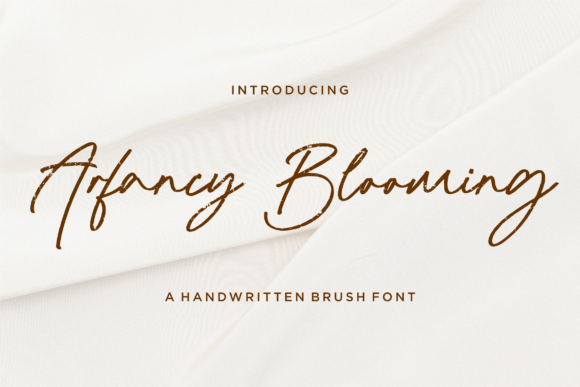
Introducing Arfancy Blooming Font: Elevate Your Designs with Elegance and Charm
Are you looking for a font that can add a touch of sophistication and elegance to your designs? Look no further than the Arfancy Blooming Font. This stylish handwritten script font is perfect for creating beautiful and eye-catching invitations, logos, and branding materials. With its flowing, graceful curves and delicate strokes, Arfancy Blooming Font is sure to bring warmth and creativity to your projects.
The Characteristics of Arfancy Blooming Font
Arfancy Blooming Font is a unique and stylish handwritten script font that boasts several distinctive characteristics. Some of its key features include:
- Flowing, Graceful Curves: The font features beautiful, flowing curves that give it a sense of elegance and sophistication.
- Delicate Strokes: The delicate strokes of the font add a touch of warmth and creativity to any design.
- Handwritten Script: The font has a handwritten script feel that gives it a personal and unique touch.
- Perfect for Invitations and Branding: The font is perfect for creating beautiful invitations, logos, and branding materials.
The Benefits of Using Arfancy Blooming Font
There are several benefits to using Arfancy Blooming Font in your designs. Some of the advantages of this font include:
- Elegance and Sophistication: The font adds a touch of elegance and sophistication to any design.
- Personal Touch: The handwritten script feel of the font gives it a personal and unique touch.
- Versatility: The font is versatile and can be used in a variety of design applications, including invitations, logos, and branding materials.
- Easy to Read: The font is easy to read, making it perfect for use in body text as well as headings.
How to Use Arfancy Blooming Font in Your Designs
Arfancy Blooming Font is easy to use in your designs. Here are a few tips for incorporating the font into your work:
- Use it as a Headline Font: The font is perfect for use in headlines and titles, where its elegant and sophisticated feel can really shine.
- Add it to Your Invitations: The font is perfect for use in invitations, where its personal and unique touch can help to make your event stand out.
- Use it in Your Branding: The font is perfect for use in branding materials, such as logos and business cards, where its elegance and sophistication can help to create a lasting impression.
Tips for Pairing Arfancy Blooming Font with Other Fonts
When using Arfancy Blooming Font in your designs, it’s often a good idea to pair it with other fonts to create visual interest and contrast. Here are a few tips for pairing the font with other fonts:
- Pair it with a Serif Font: Pairing Arfancy Blooming Font with a serif font, such as Times New Roman or Garamond, can create a nice contrast between the elegant, cursive feel of the script font and the traditional, classic feel of the serif font.
- Pair it with a Sans-Serif Font: Pairing Arfancy Blooming Font with a sans-serif font, such as Arial or Helvetica, can create a nice contrast between the elegant, cursive feel of the script font and the clean, modern feel of the sans-serif font.
- Experiment with Different Font Sizes: Experimenting with different font sizes can help to create visual interest and contrast in your designs.
Arfancy Blooming Font is a beautiful and elegant handwritten script font that is perfect for adding a touch of sophistication and charm to your designs. With its flowing, graceful curves and delicate strokes, this font is sure to bring warmth and creativity to your projects. Whether you’re creating invitations, logos, or branding materials, Arfancy Blooming Font is a great choice.
- What is Arfancy Blooming Font? Arfancy Blooming Font is a stylish handwritten script font that exudes elegance and charm with its flowing, graceful curves.
- What is Arfancy Blooming Font used for? Arfancy Blooming Font is perfect for creating beautiful and eye-catching invitations, logos, and branding materials.